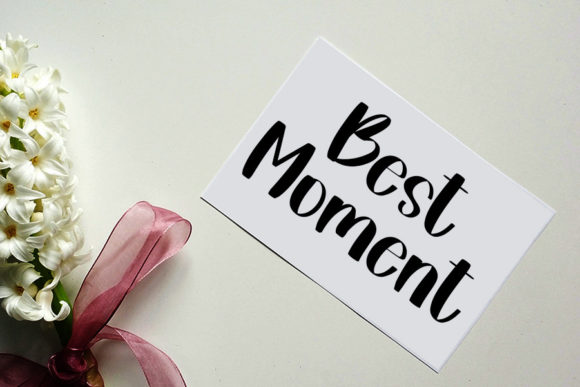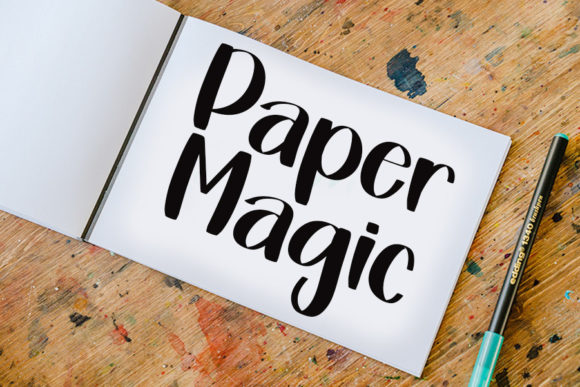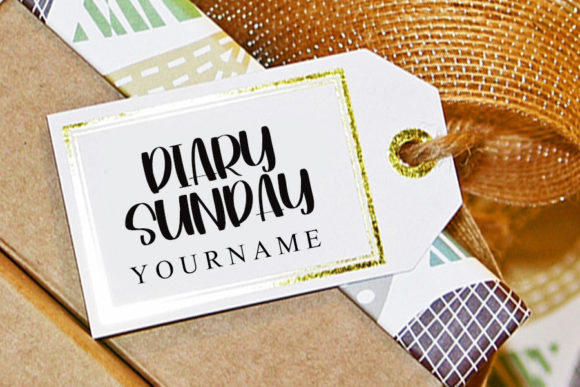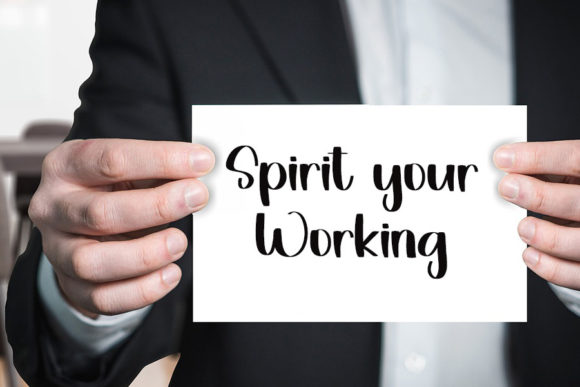
The Magic of Creative Winter: A Fun and Friendly Handwritten Font
As designers, we’ve all been there – stuck on a project, struggling to find the perfect font that captures the essence of our vision. I recall working on a winter-themed craft project, wanting a font that exuded warmth and playfulness, but coming up empty-handed. That’s when I discovered **Creative Winter**, a fun, friendly, and cute handwritten font that instantly elevated my design game.
Here’s what makes Creative Winter a standout font:
- ✨ Modern and Chic: This font adds a touch of sophistication to any design, making it perfect for projects that require a bit of elegance.
- ✅ Easy to Read: The clear, handwritten style ensures that your message is conveyed with clarity, even at smaller font sizes.
- 🎉 Versatile: From holiday crafts to branding projects, Creative Winter adapts seamlessly to various design contexts.
However, no font is perfect. A few things to keep in mind:
- 🤔 Kerning: As with many handwritten fonts, you might need to adjust kerning for optimal results, especially in larger text blocks.
- ⚠️ Legibility at Small Sizes: While generally easy to read, some letters might lose clarity at very small font sizes (below 10pt).
The Story Behind Creative Winter: Designer Inspiration
Creative Winter was designed with the intention of capturing the warmth and joy of the winter season. The designer aimed to create a font that felt both modern and approachable, perfect for a wide range of creative projects. By combining clean lines with a playful handwritten touch, Creative Winter brings a unique charm to any design.
Q: Does Creative Winter support OpenType features?
A: Yes, Creative Winter supports various OpenType features, including stylistic alternates and glyphs, which can enhance your design’s creativity and uniqueness.